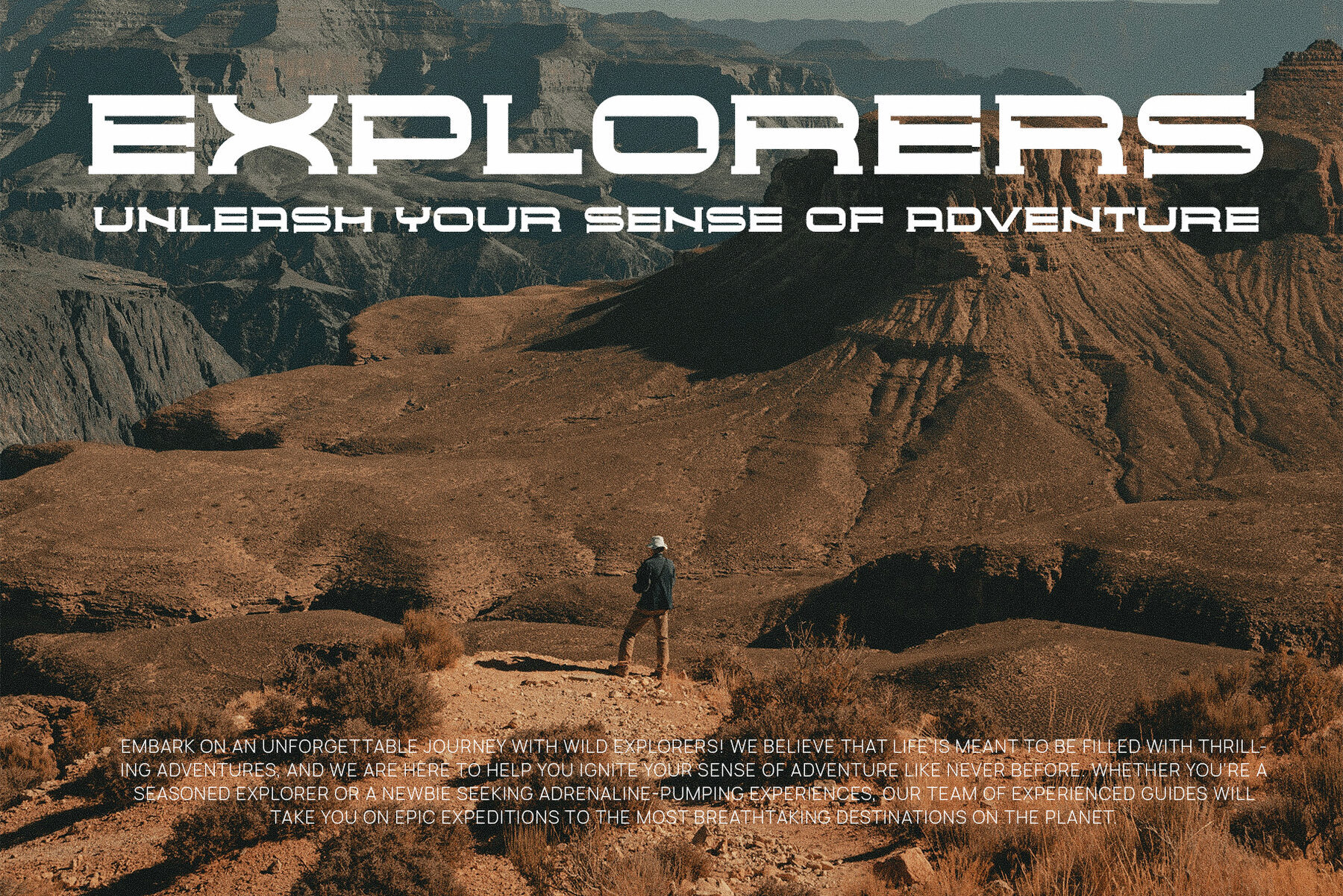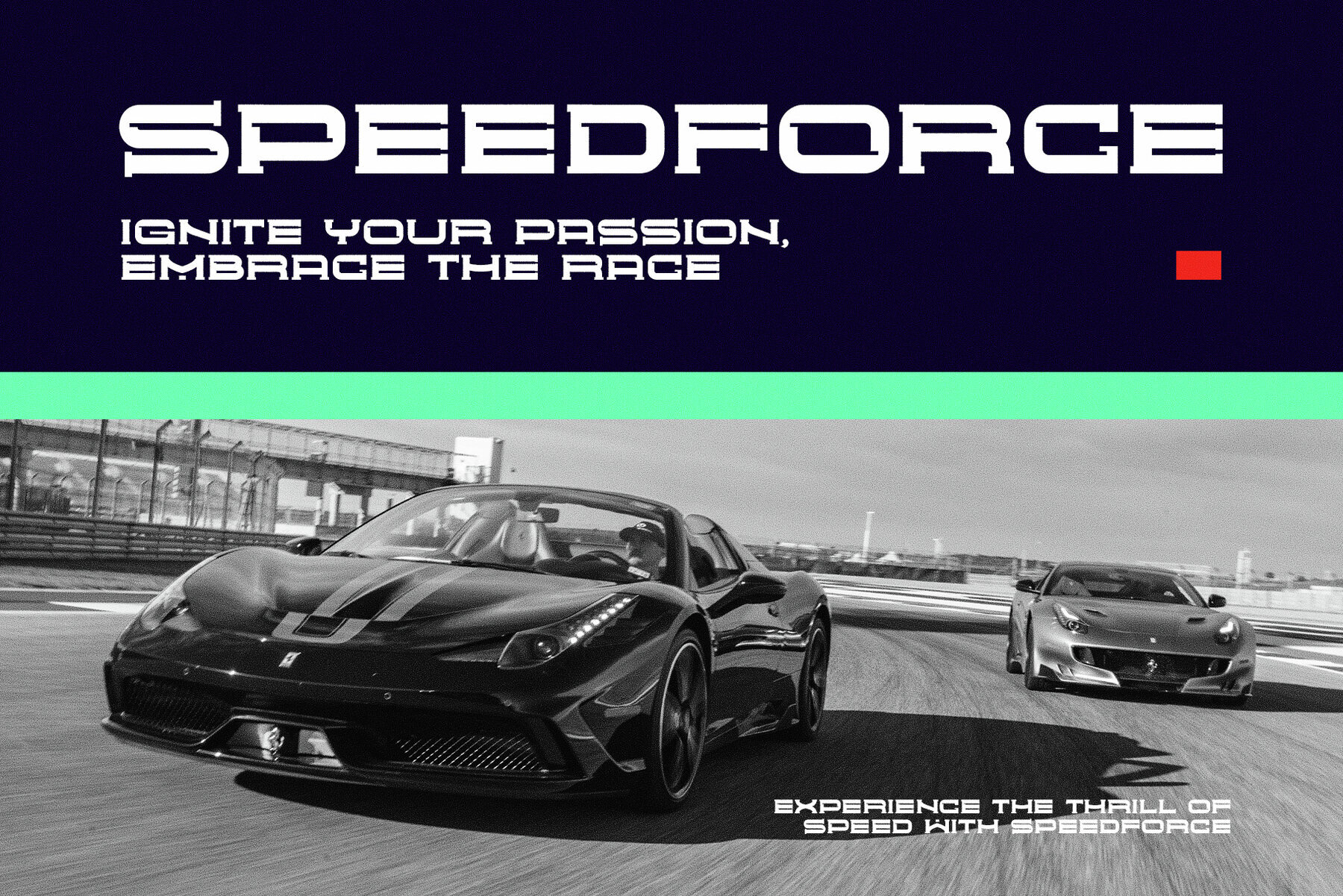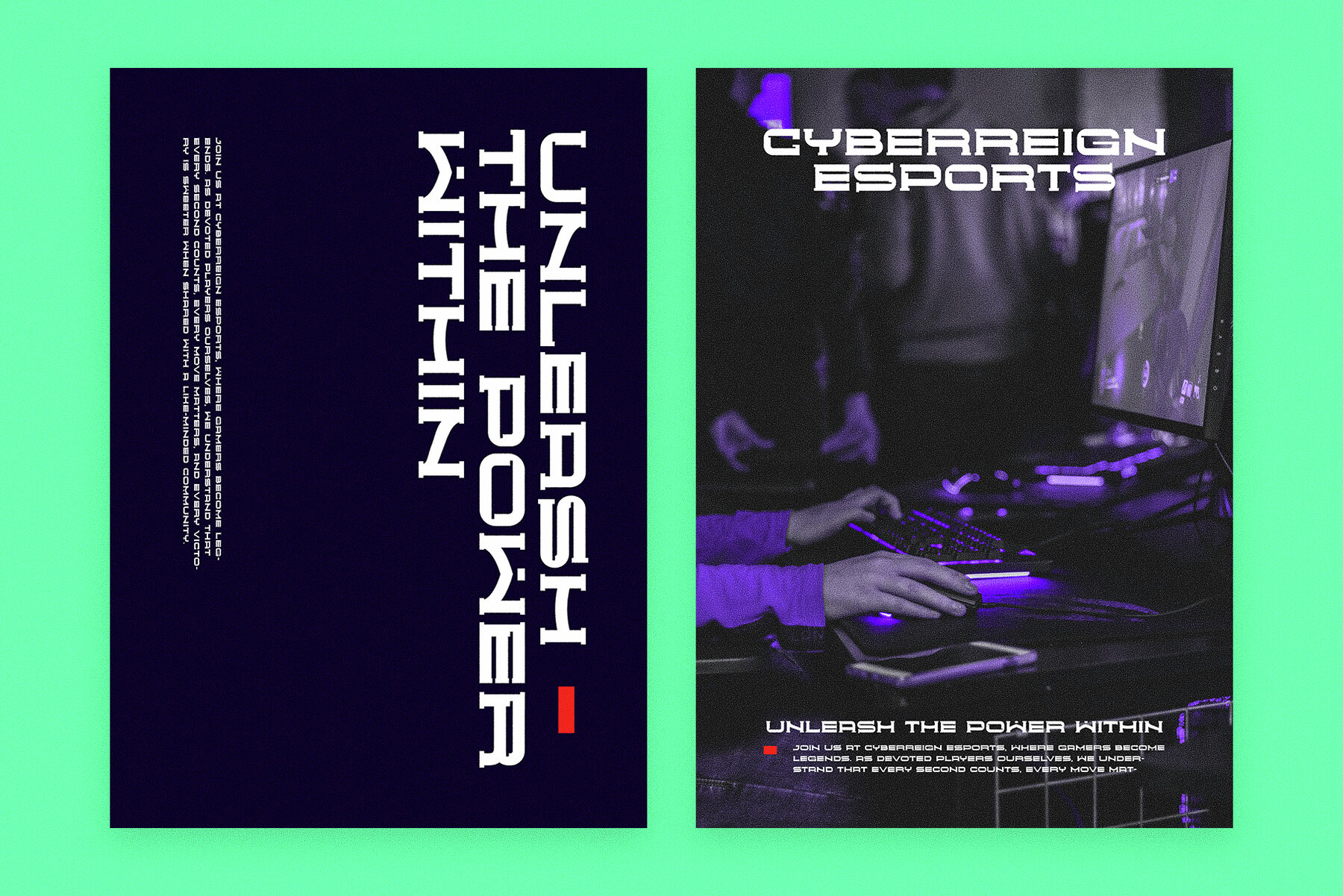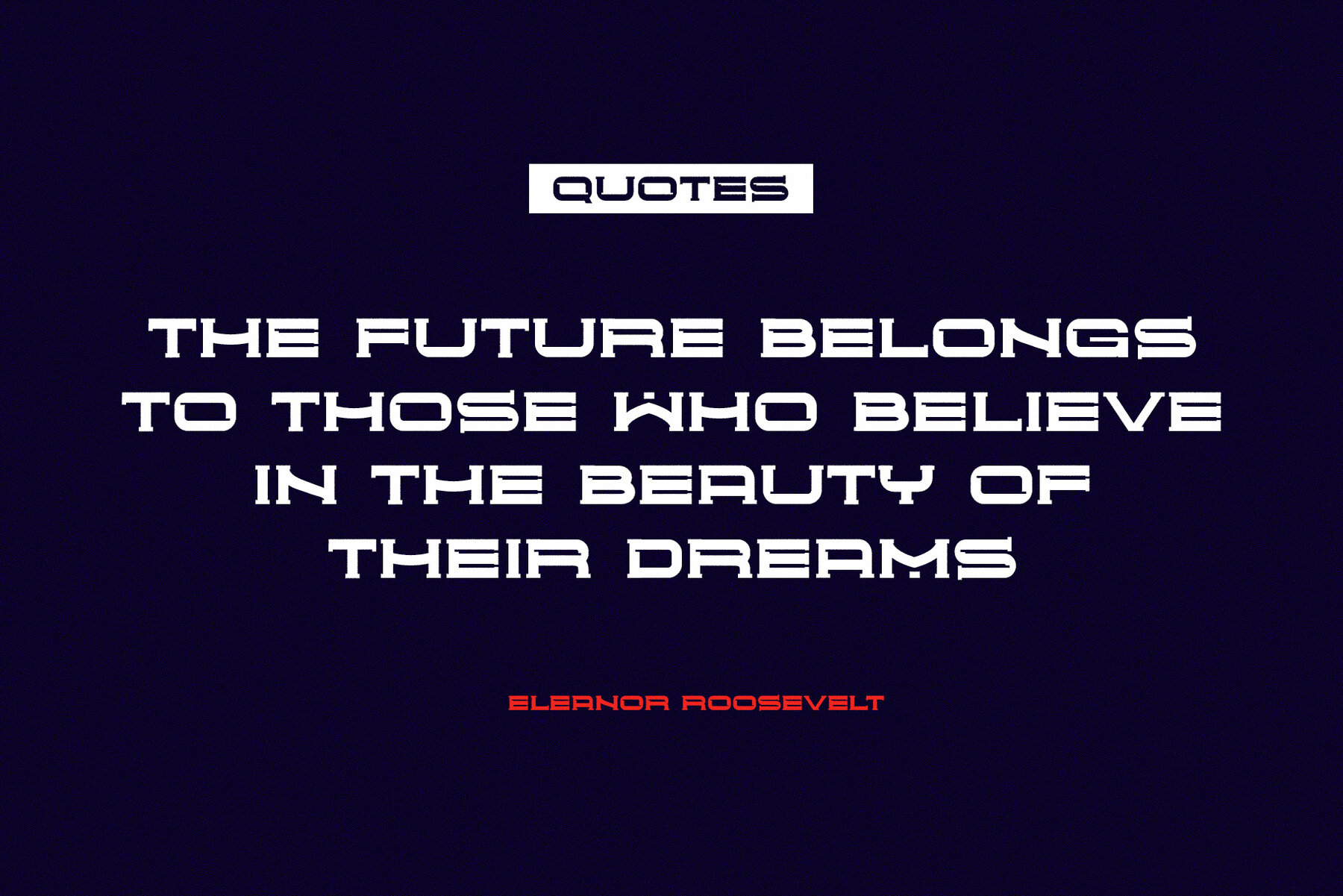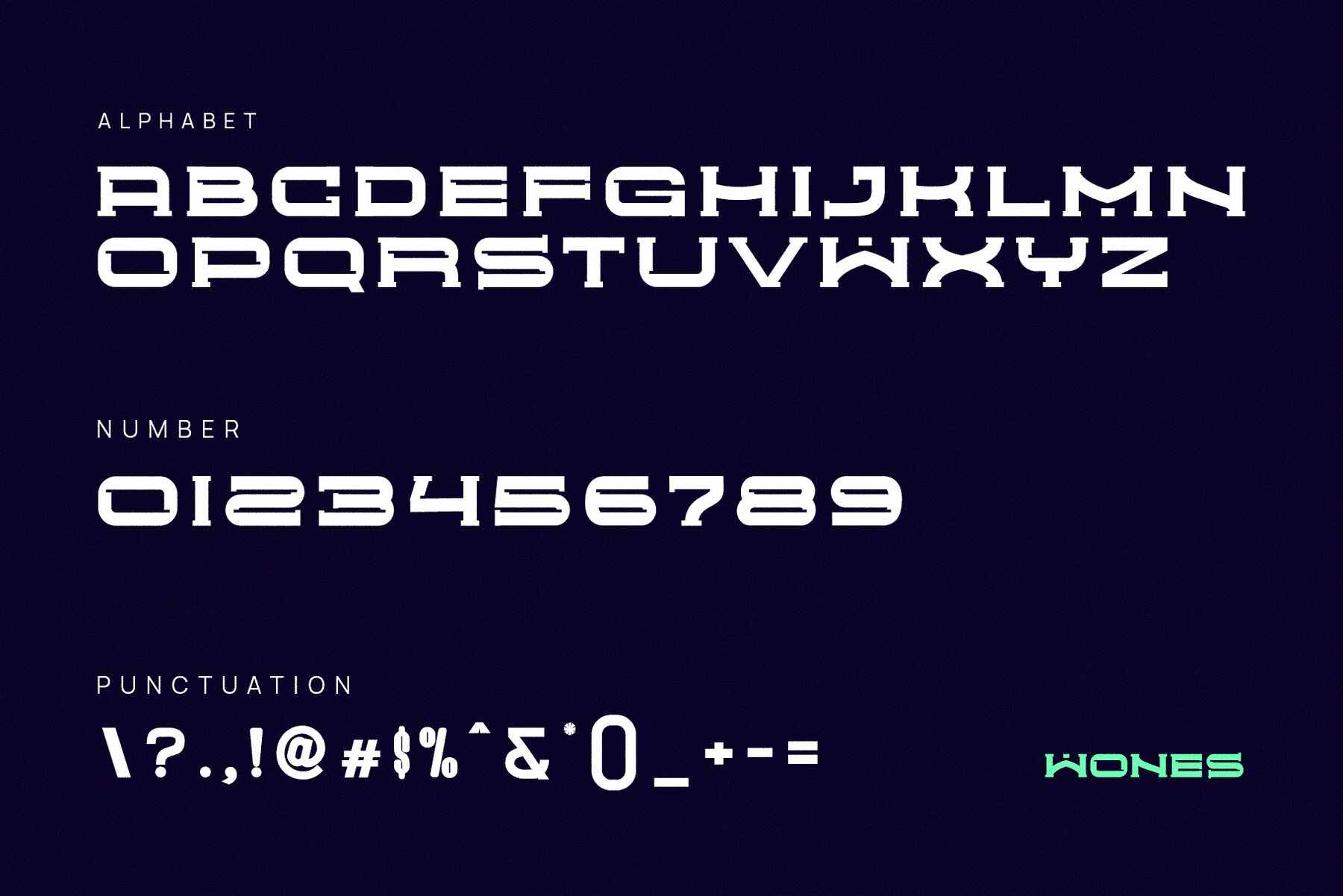
Wones Font
Wones
Wones Futuristic Font is a bold typeface that captures the essence of innovation and technology through its sleek geometric forms and sharp, angular edges. Crafted for designs that demand a modern aesthetic, Wones delivers a typographic experience that feels contemporary and forward-thinking. Its distinctive character set is defined by precision and minimalism, featuring sharp lines and subtle curves that evoke technological advancement while ensuring high legibility across various applications.
Ideal for digital and print mediums alike, Wones offers versatility for websites, advertisements, and product packaging. Its clean, structured design makes it suitable for creating logos for tech companies, dynamic layouts for futuristic magazines, or product branding for cutting-edge innovations. This font is perfect for brands and campaigns that aim to be perceived as progressive and ahead of the curve, providing a sleek, dynamic presence that confidently bridges the gap between the present and the future.